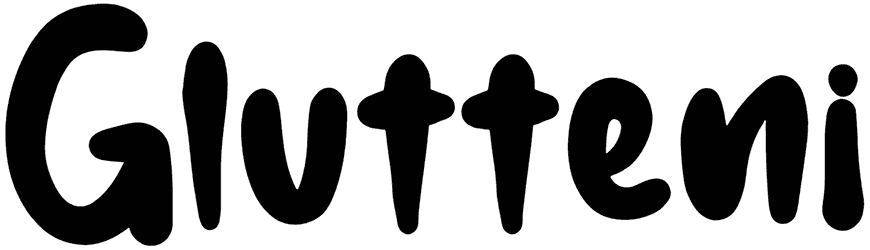
Best School Font
If you want to bring a happy feeling to your content then we suggest you try a cartoon font. From that category, we offer you Best School which is a very cute font and you can use it for a variety of projects like comic books, children’s storybooks, cartoons, birthday cards, T-shirts, etc.
This typeface comes in two styles and each of them contains both the uppercase and lowercase of the alphabet, the numbers, and the punctuation marks.
Designed by: 7NTypes